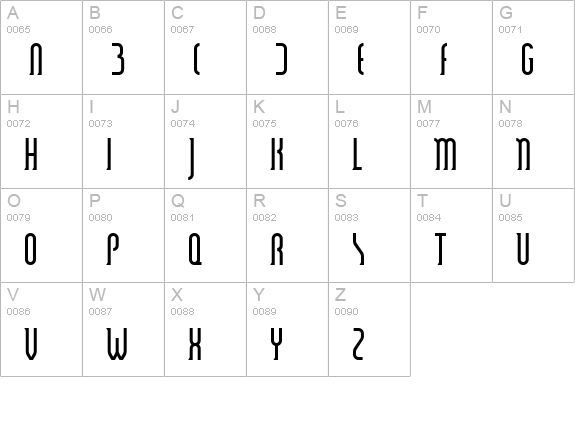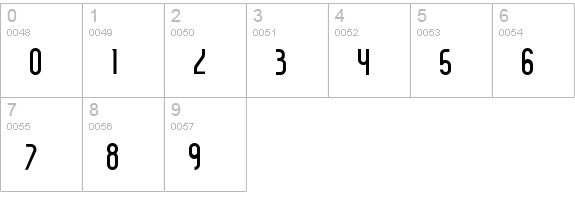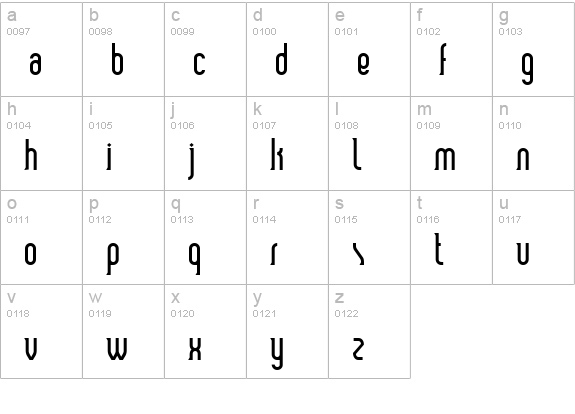
Smart and Sexy Font Details
Smart and Sexy font is a stunning typeface that perfectly combines intelligence and allure. Its sleek and sophisticated design exudes an air of elegance and class, making it the ideal choice for those seeking a font that is both refined and captivating. This font features clean, crisp lines and beautifully crafted curves, giving each letter a contemporary and stylish appearance. With its balanced proportions and well-defined characters, Smart and Sexy font effortlessly captures attention and leaves a lasting impression. What sets Smart and Sexy font apart is not only its visually appealing aesthetics, but also its versatility. Whether used for branding, advertising, invitations, or any design project, this font adapts flawlessly to any setting, conveying a sense of professionalism and allure. Furthermore, Smart and Sexy font is not only visually appealing, but it is also free. Yes, you read that correctly. This exceptional font is freely available to download at FontsMarket.com. With just a few clicks, you can have access to this remarkable typeface, enabling you to enhance your designs without any additional cost. So, if you're searching for a font that effortlessly combines intelligence with sensuality, look no further than Smart and Sexy font. With its captivating design and the added bonus of being freely available, this font is truly a must-have for any designer, marketer, or creative individual looking to make a lasting impression.